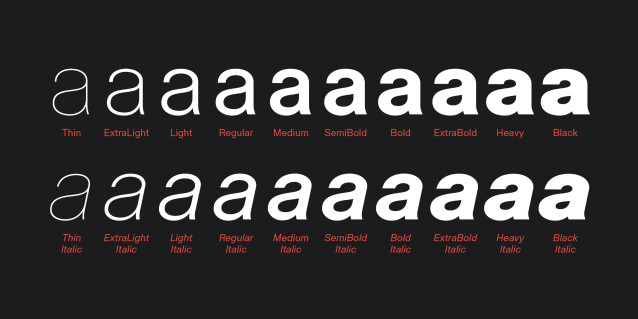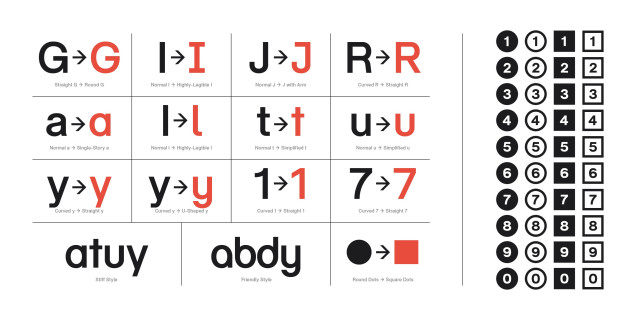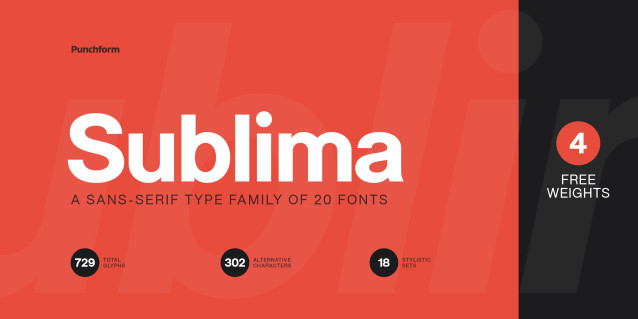
Sublima Font Family
Sublima Font Family is meticulously designed to adapt its personality to any project. With 302 alternative characters and 18 stylistic sets, you get unlimited power to take your creativity to the next level.
Sublima is the smartest choice for any creative project. With a single click, you can change its typographic personality and adapt it to your desired style. Choose between 3 predefined styles or create your own style by combining the hundreds of alternate characters available.